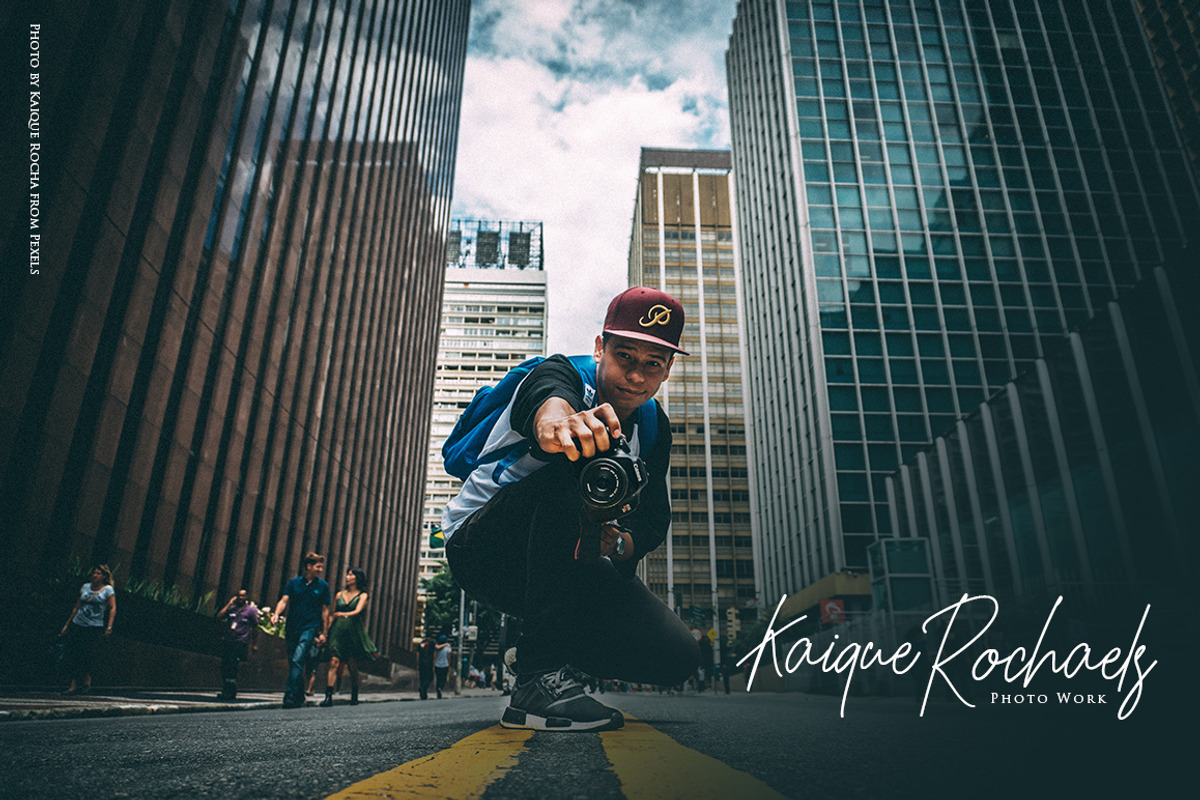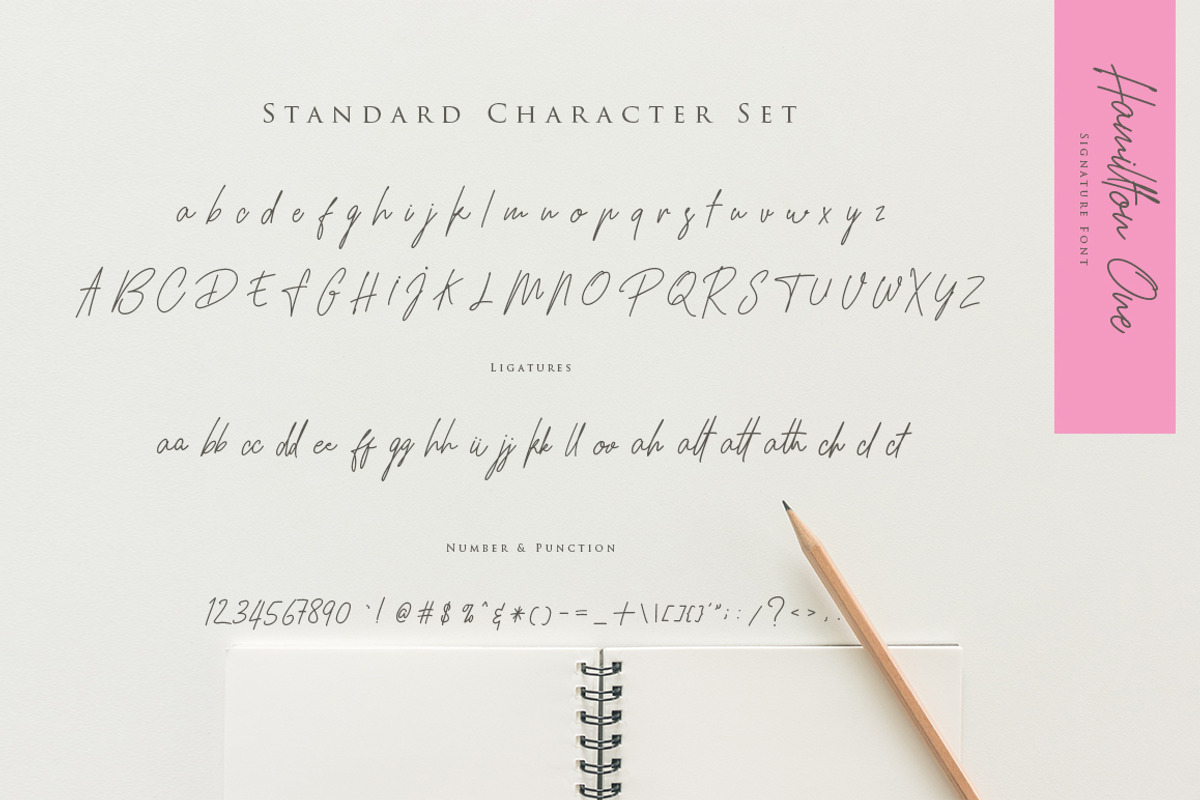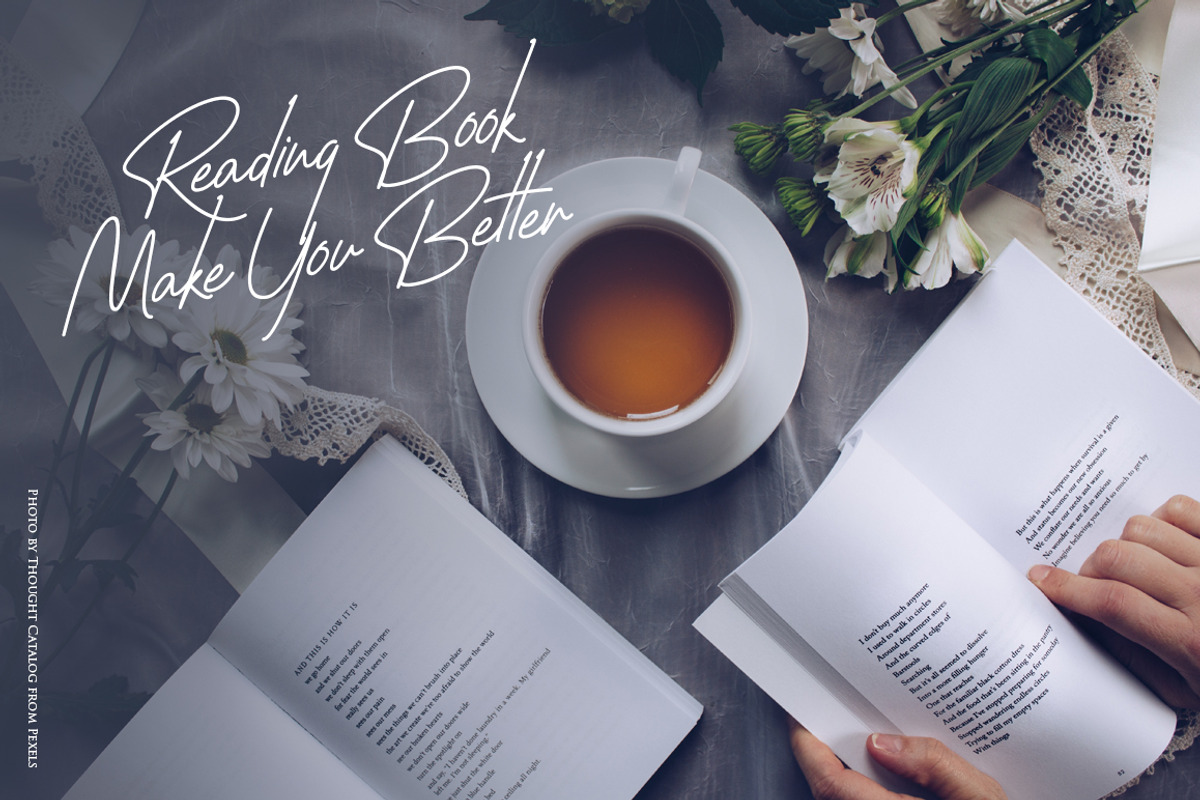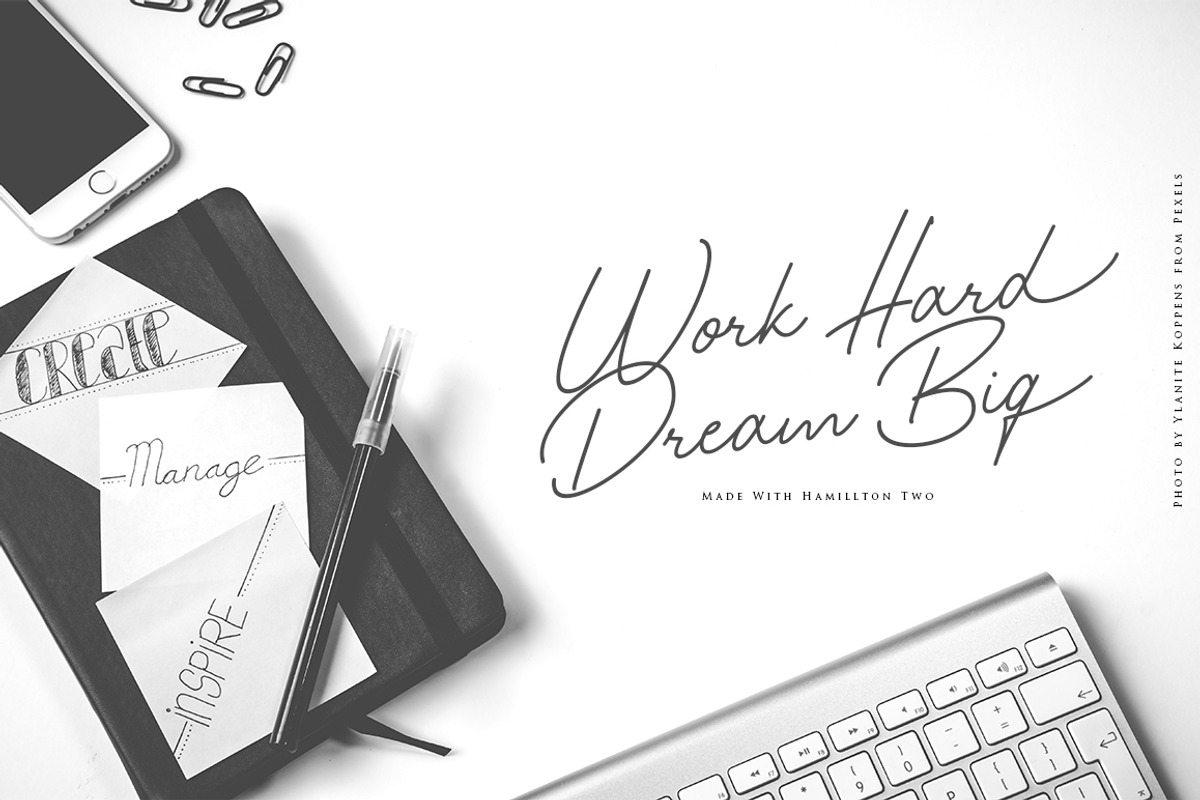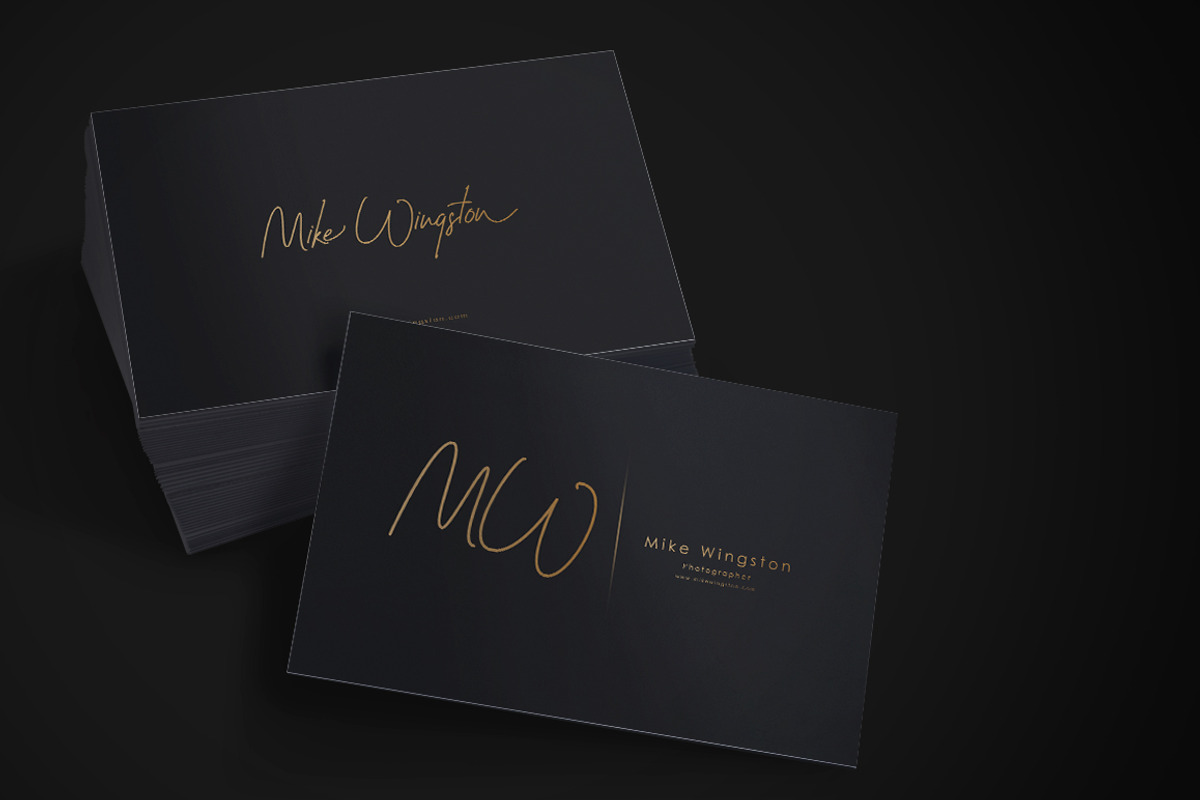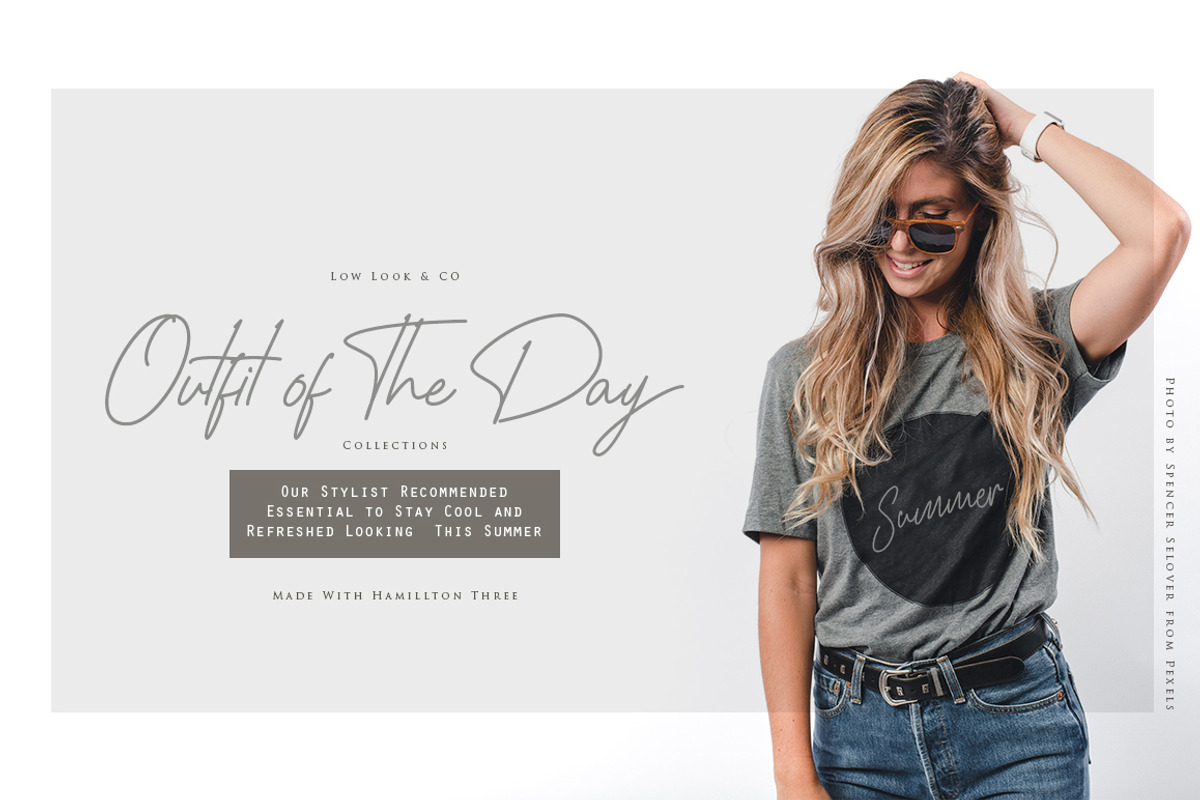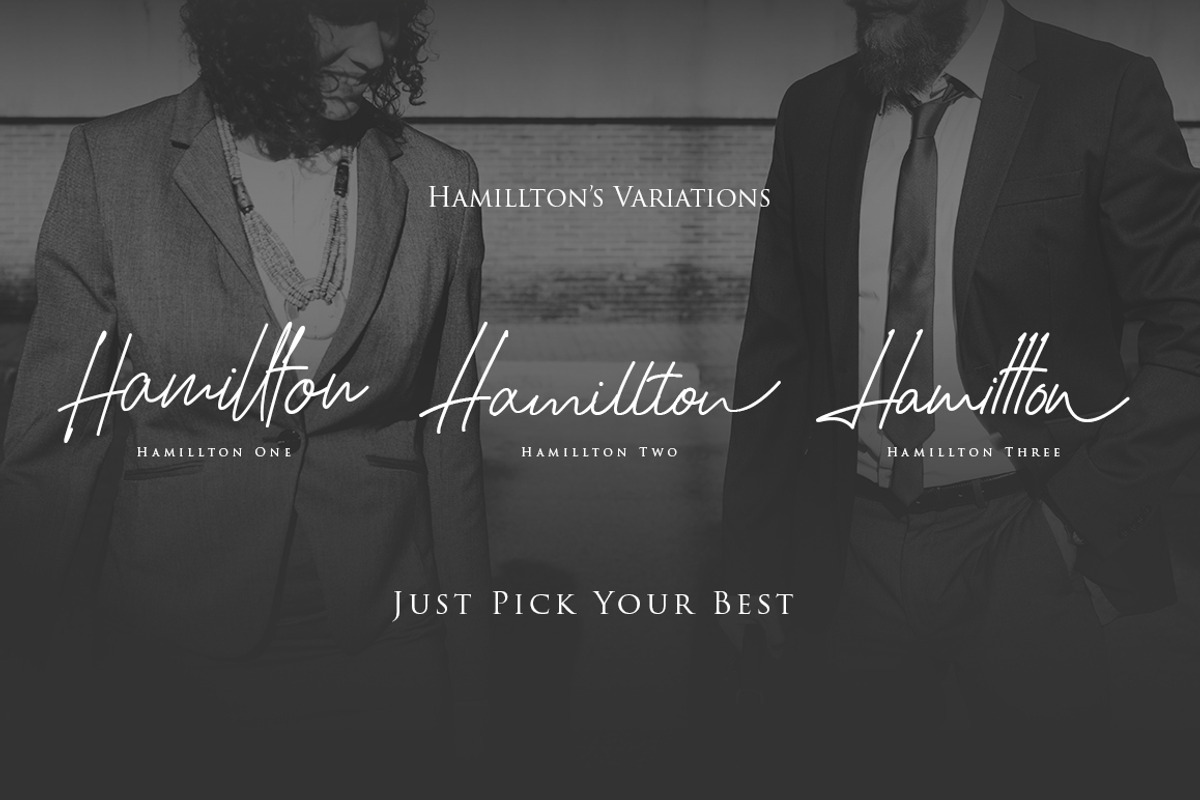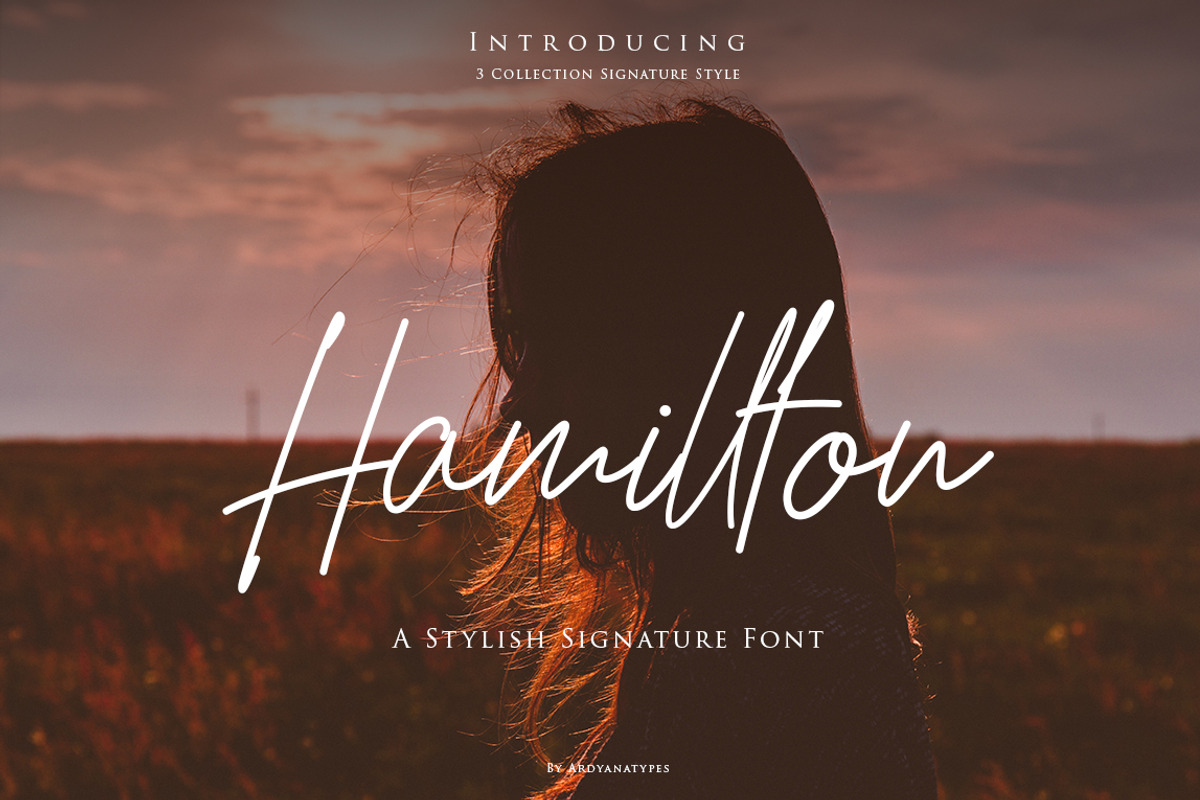
Hamillton Script Font
This is Hamillton made with simple and elegant hand writting, Hamillton has 3 variants for you to use, which each variant has a different type for you to use, equipped with alternative opentype features, initial and final forms, ligatures. We keep this font look elegant, classy, easy to read, stylish, memorable, and easy to use. Hamillton is the perfect choice for watermarks on photography, logo design or signature, quotes, album covers, business cards, and many other design projects. From business cards to photo watermarks, Hamillton comes to make your designs more classy and elegant.
3 Variation Hamillton Font
Add more style to each font with OpenType Features - stylistic alternates, lowercase initial form and final form, ligatures.
The perfect font choice for powerful projects - watermarks, signatures, photography, logos, business cards, quotes, album covers.
Hamillton Script Font by Ardyanatypes fits naturally into Branding, posters, packaging, typography.